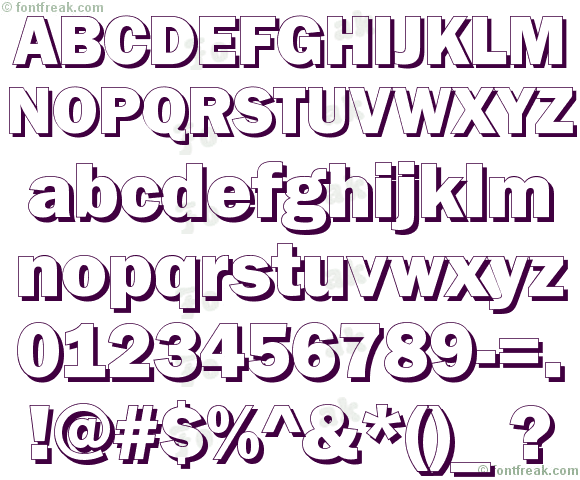
Goffik-Shadow
About Goffik Shadow
Goffik Shadow is a striking display font from The Font Farm, categorized as a decorative typeface that captures attention with its unique design. This font features thick, bold strokes combined with a playful shadow effect, adding depth and dimension to each letter. The contrast between the heavy main characters and the lighter shadow creates a visually engaging experience, making it perfect for a variety of creative projects. The spacing between letters is well-balanced, ensuring readability while maintaining a fun and whimsical aesthetic.
This font is particularly well-suited for eye-catching applications such as movie posters, where its bold presence can draw in viewers. It also shines in graphic design projects like album covers, where its unique style can convey a sense of fun and creativity. Additionally, Goffik Shadow is ideal for restaurant menus that aim to create a lively atmosphere, as well as promotional materials for events or parties that require a festive touch. The font's charming character makes it an appealing choice for small business owners looking to enhance their branding.